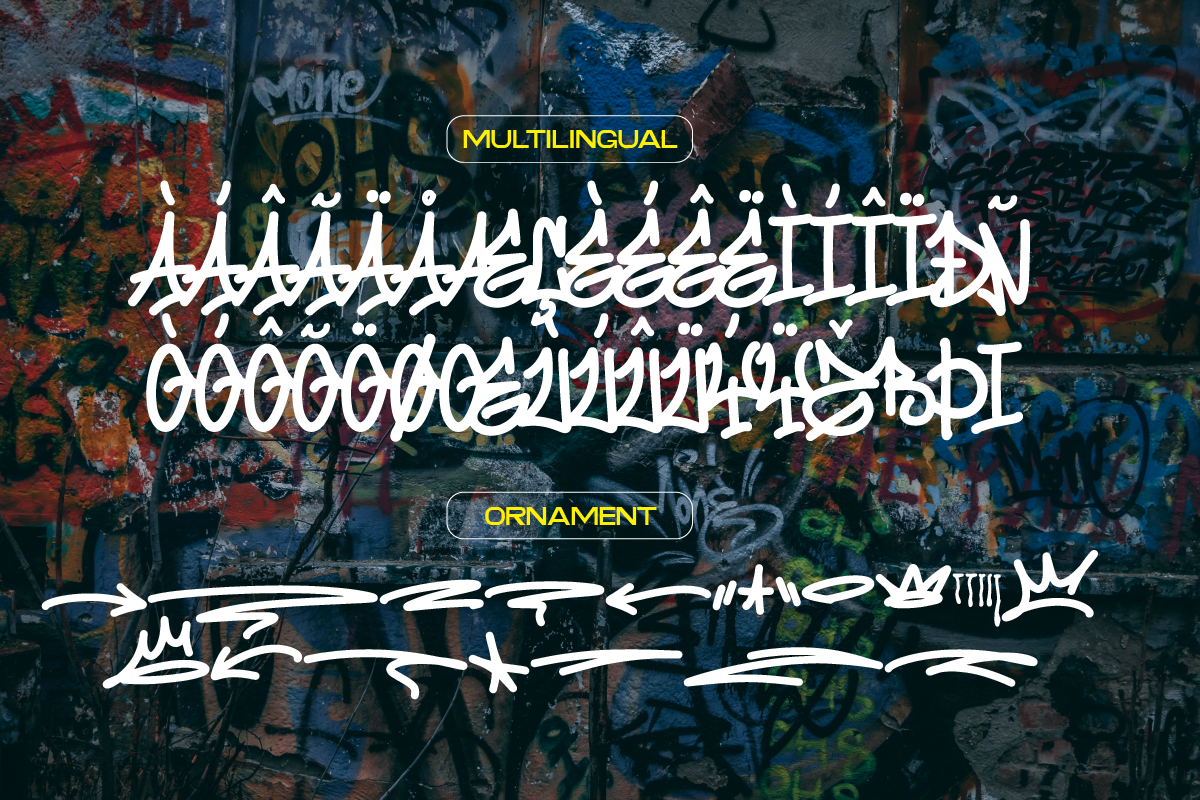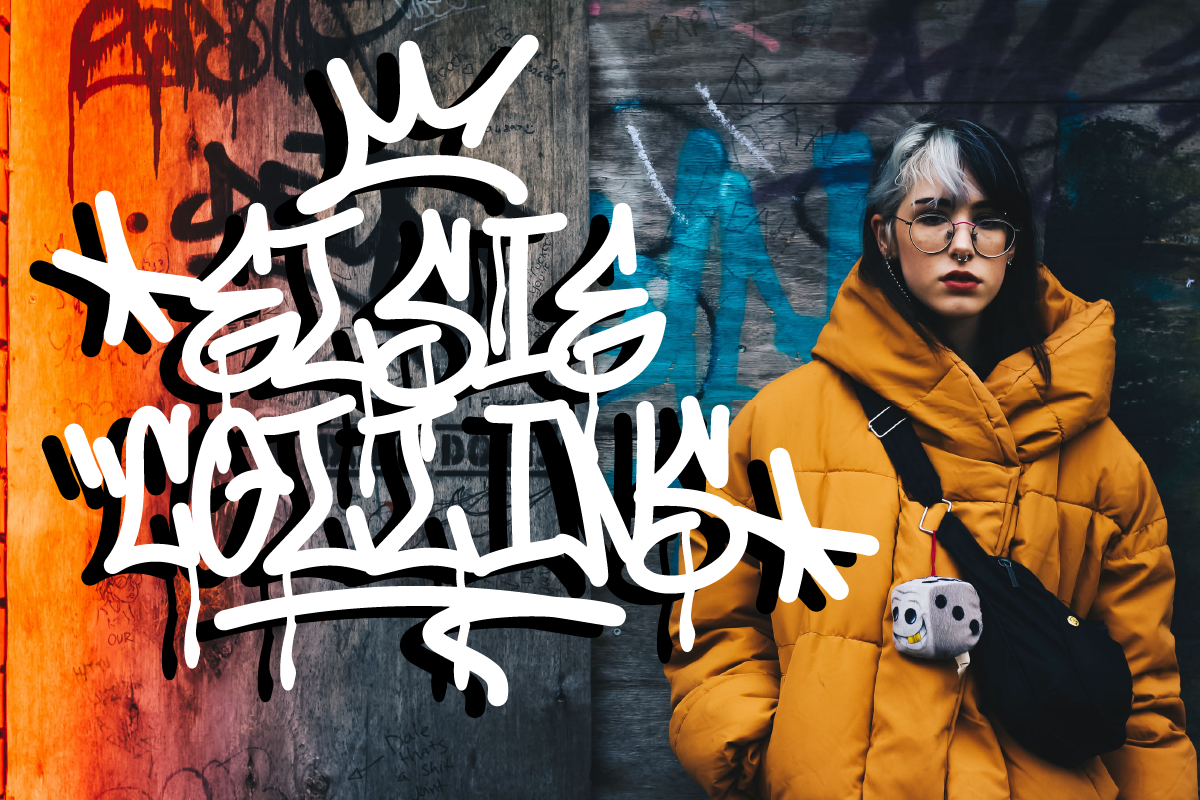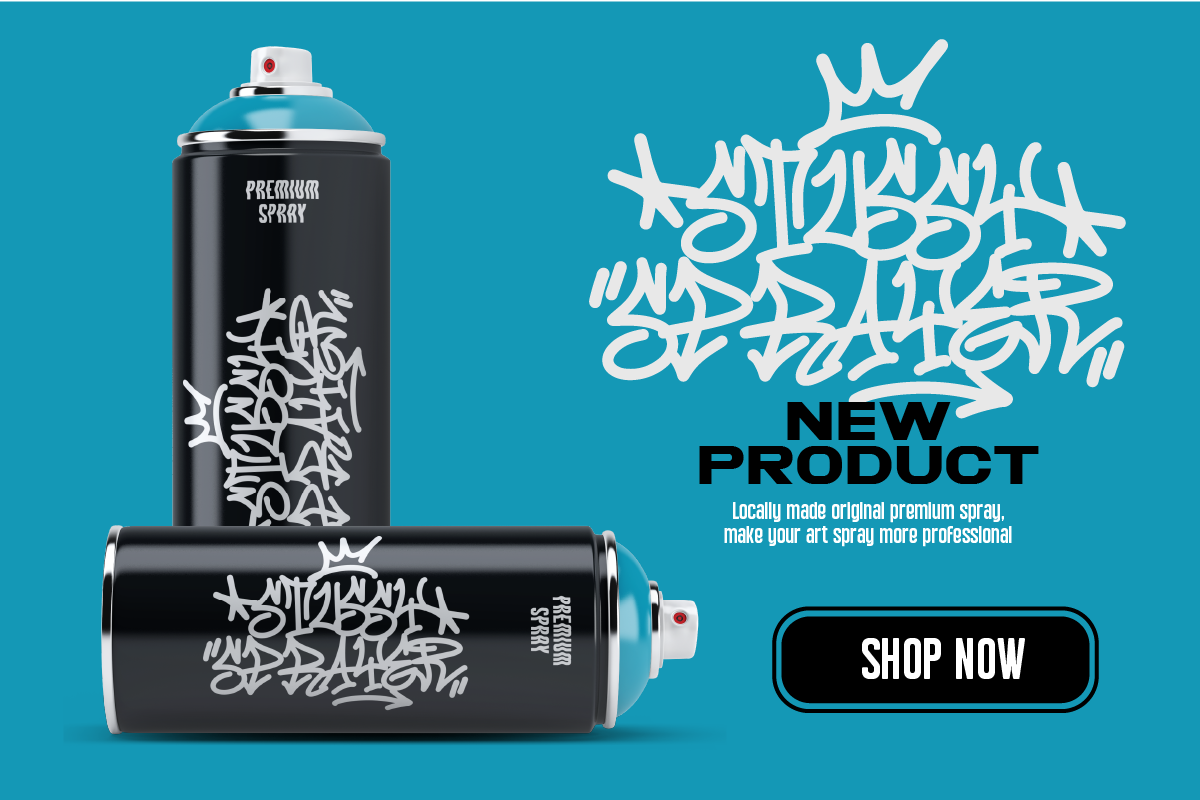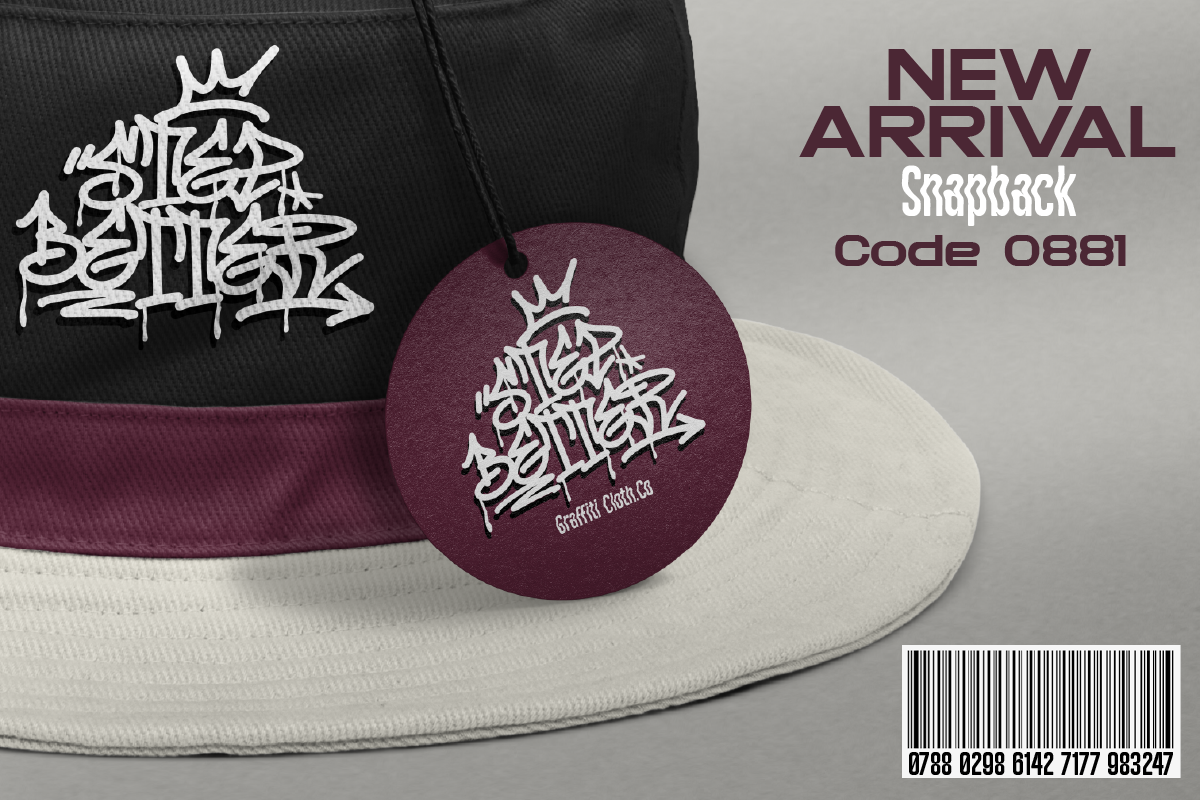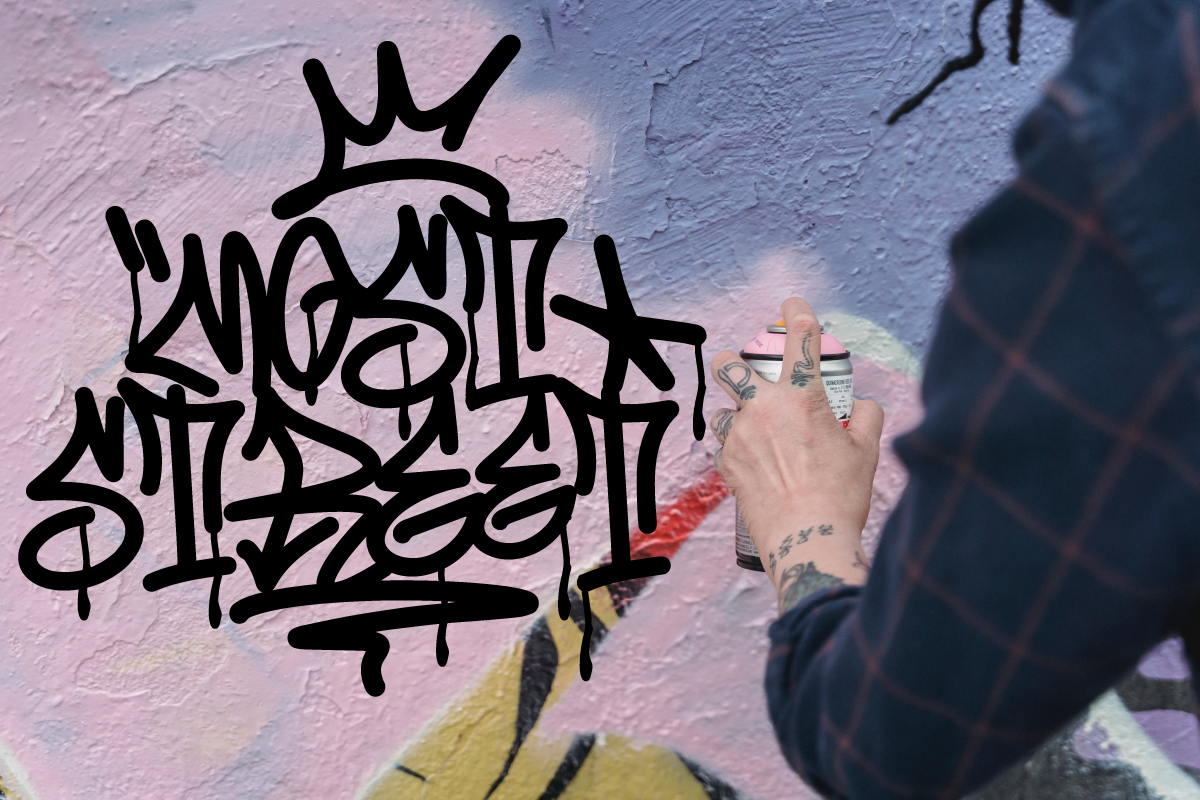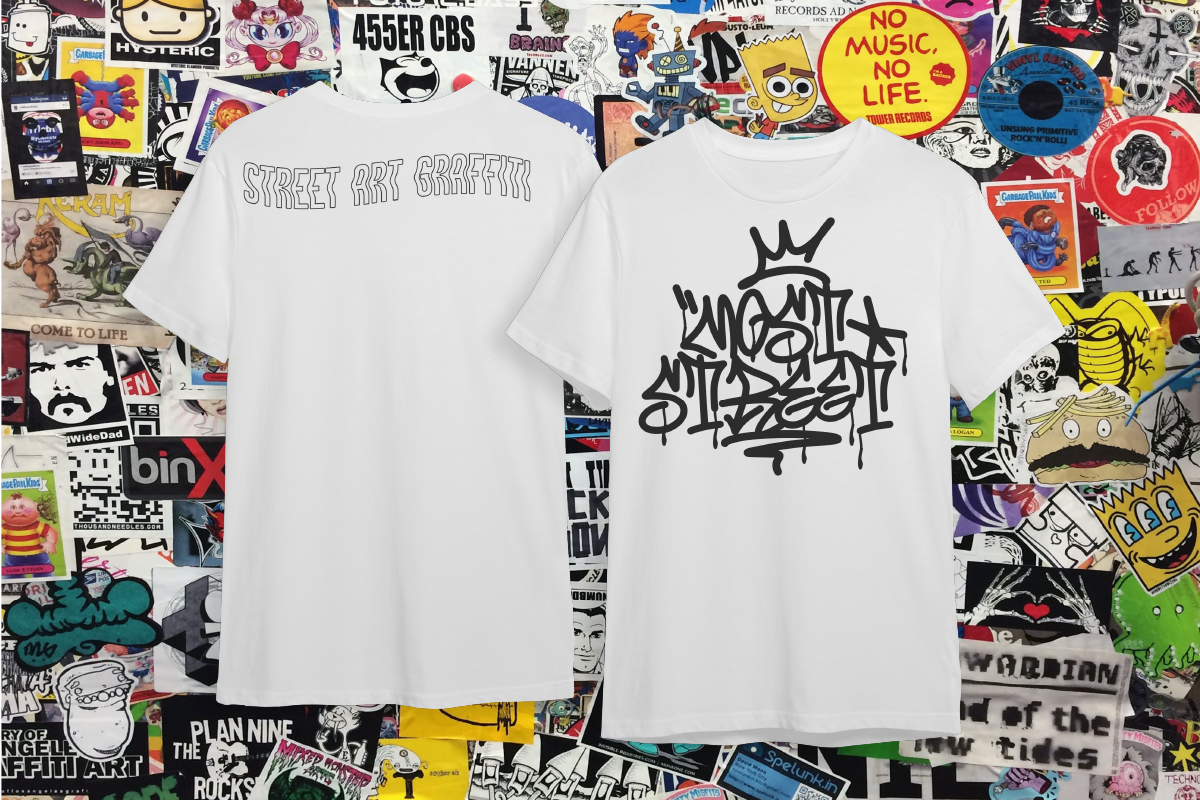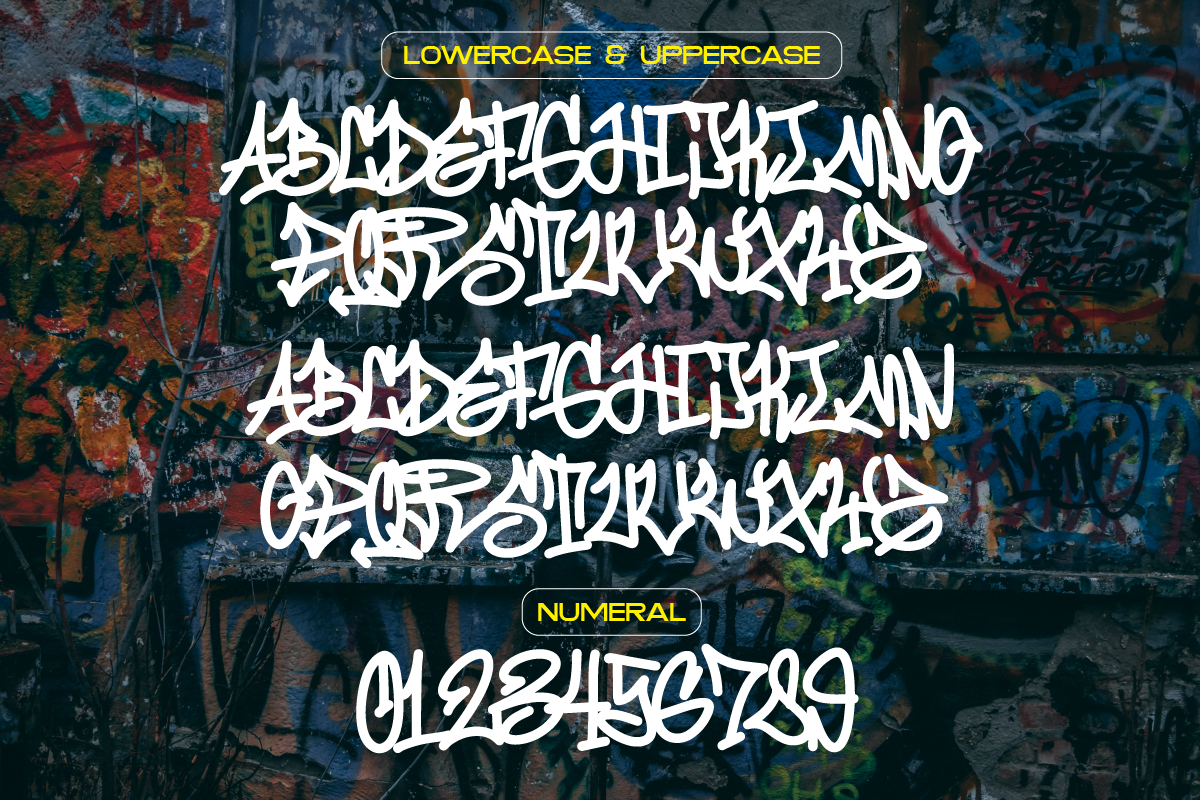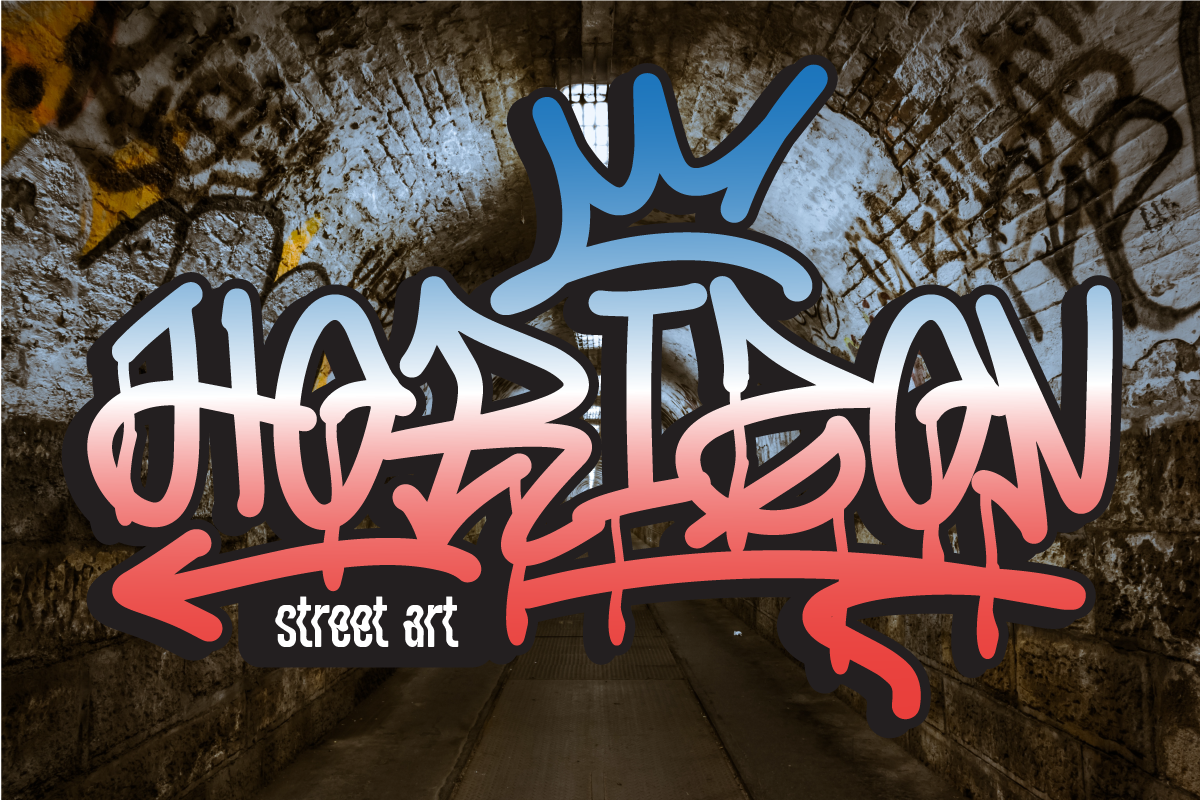
Step Better Graffiti Tags
Step better font Inspired by street graffiti markings, Urban Tag comes with the iconic round tip markers, this style is often used by several graffiti artists around the world because of its very unique style, very fun to write on markers. Perfect if you want a realistic street art or hip hop style for your designs, posters, props, etc.
- All Caps
- Swash / Ornament